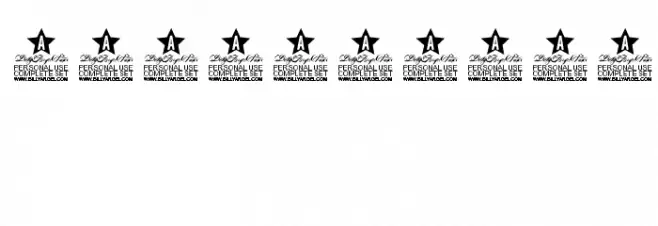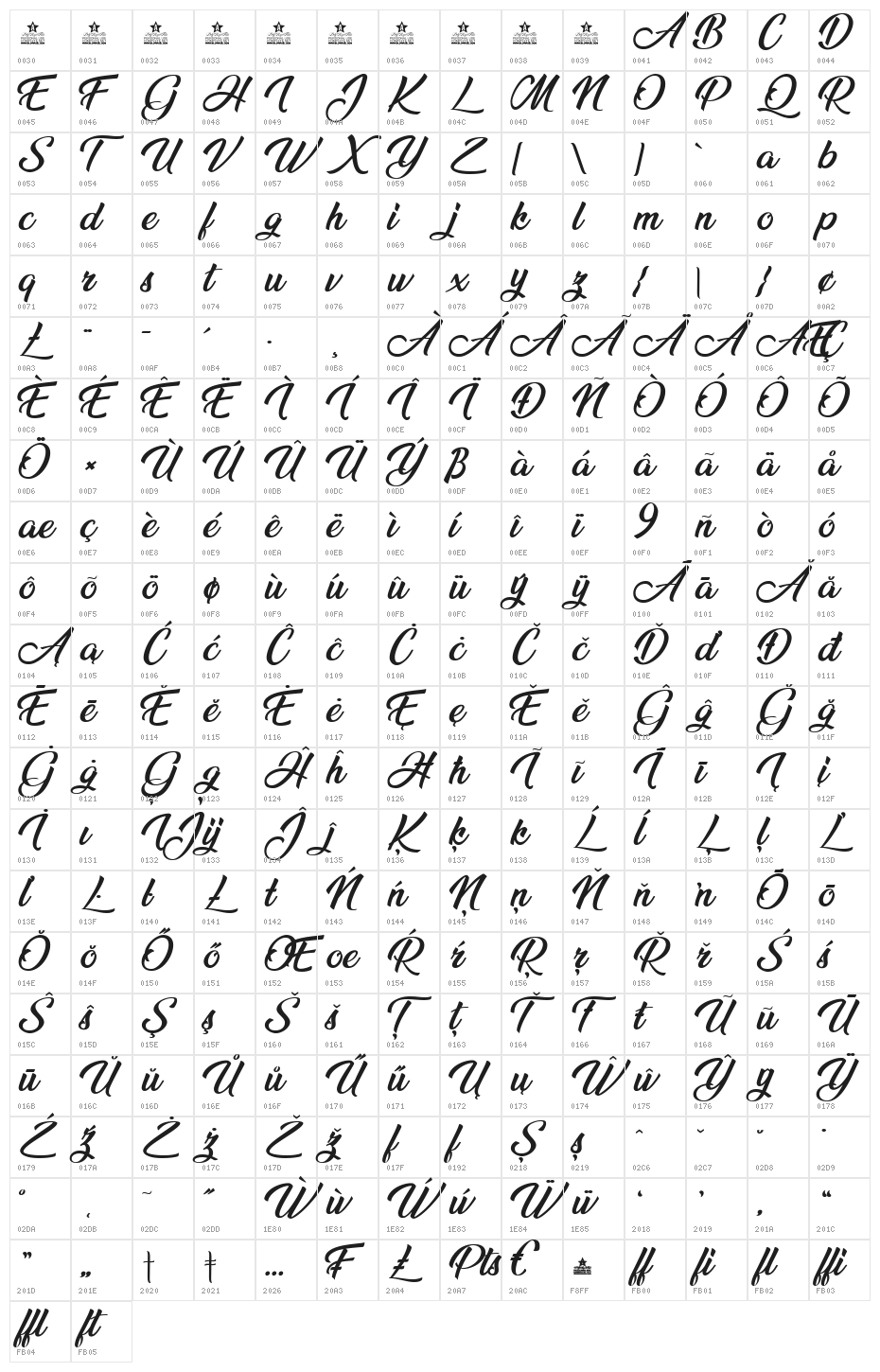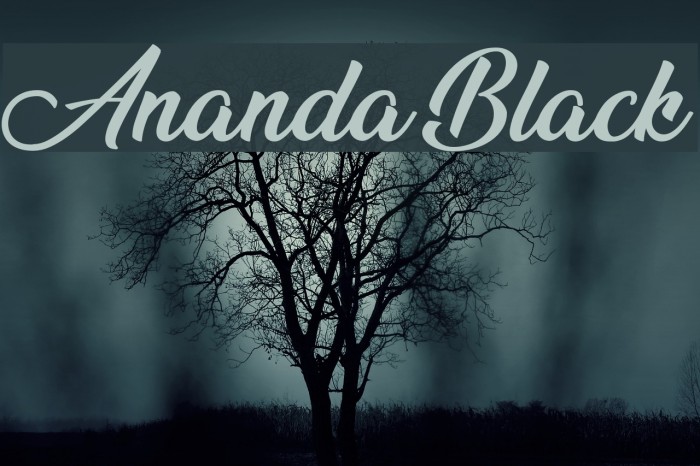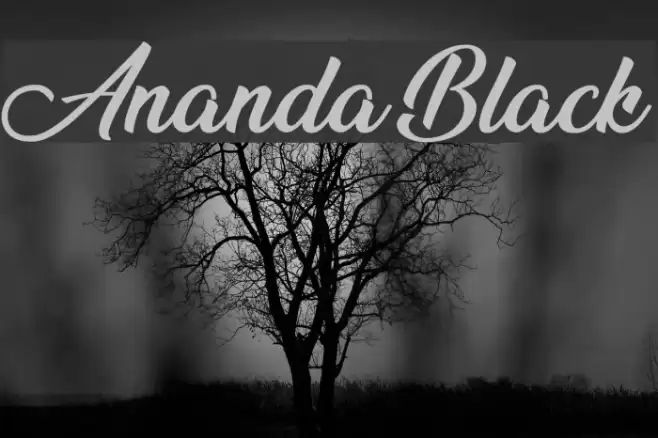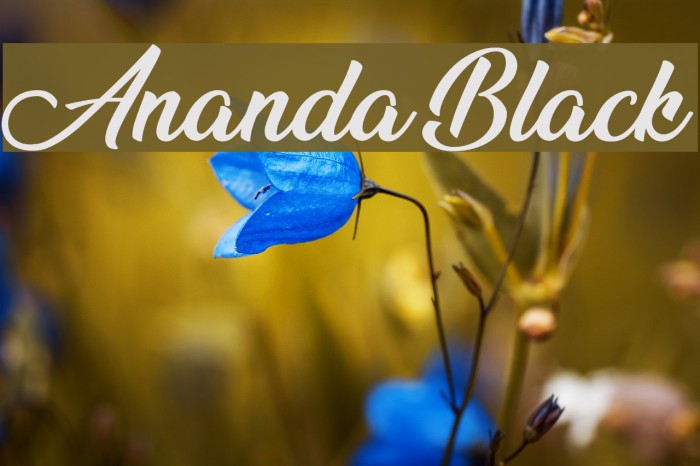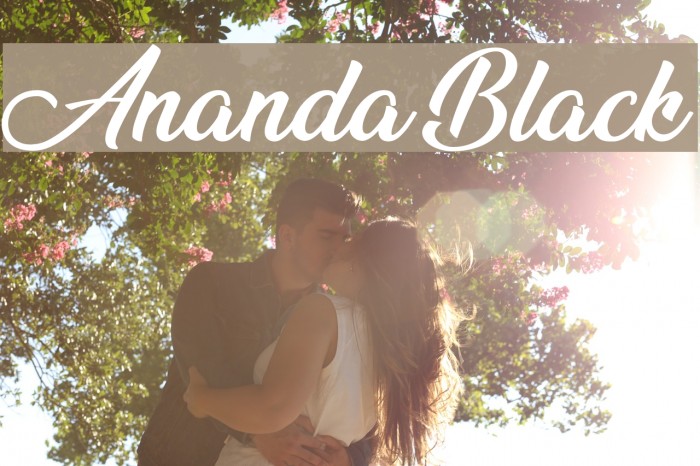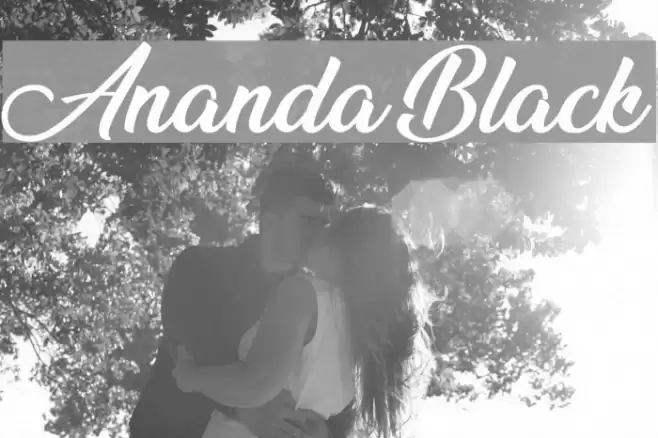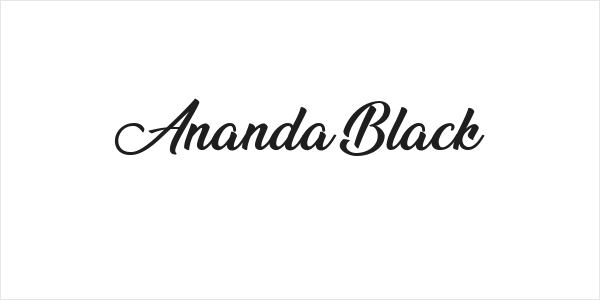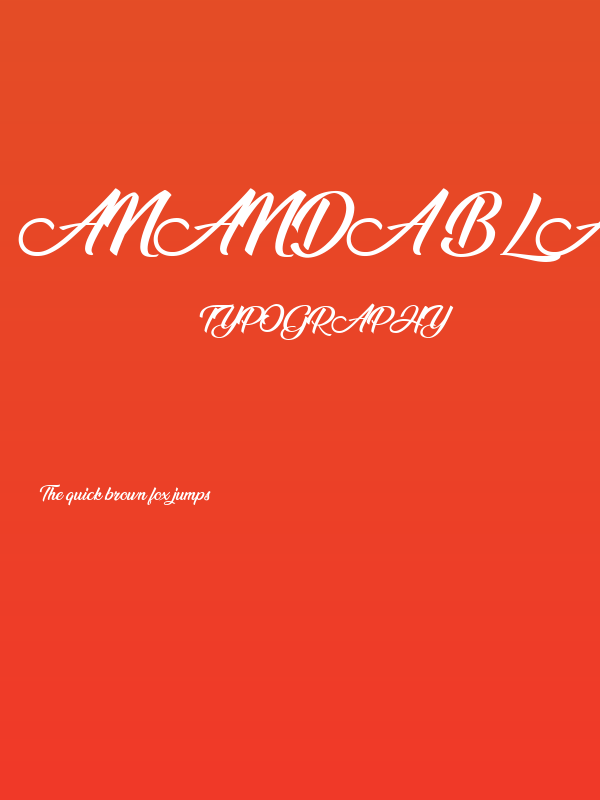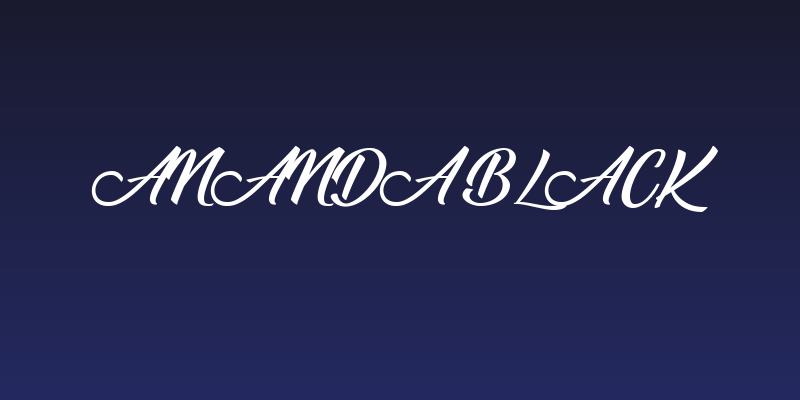
Ananda Black Font
Ananda Black Description
This font features a bold, cursive style with a strong emphasis on fluidity and elegance. The uppercase letters are characterized by sweeping lines and dramatic flourishes, giving them a sense of movement and grace. The lowercase letters maintain a consistent flow, with some characters featuring unique loops and curves that add to the overall aesthetic. The numbers and special characters are designed to match the script style, ensuring a cohesive look across all text. This font is ideal for projects that require a touch of sophistication and flair.